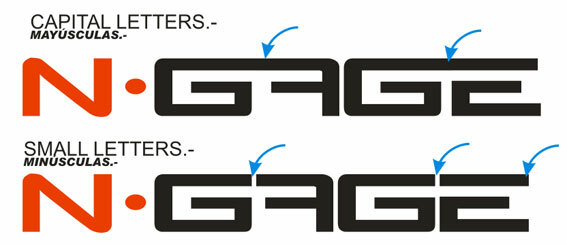
N-Gage
N-Gage is a striking, futuristic display font designed by Alejandro Conde López. Its expanded, angular letterforms evoke a bold, technological aesthetic, making it well-suited for dynamic branding, headings, and attention-grabbing designs. The sharp edges and geometric forms lend a sleek, modern sensibility, while the expanded width adds an imposing presence. N-Gage's distinctive style would shine in science fiction, gaming, and other digital media contexts, elevating visuals with its futuristic flair.
This versatile font can command attention, whether used sparingly as a statement piece or across an entire design system.